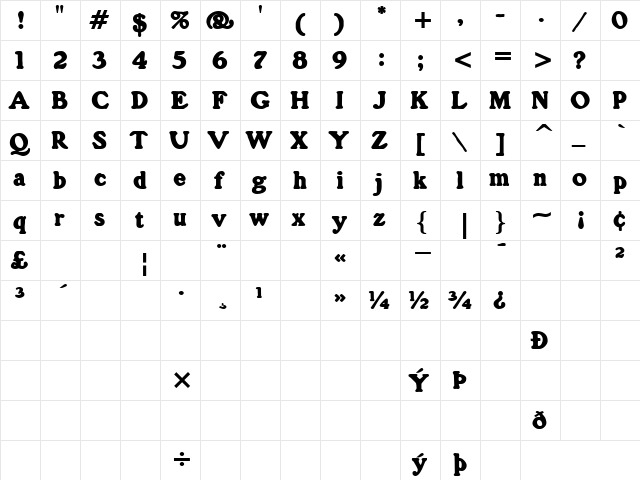
Grain Heavy
Design Context for Grain Typeface
Grain takes a measured approach to typography — its balanced proportions and neutral character make it a reliable workhorse for both digital and print work.